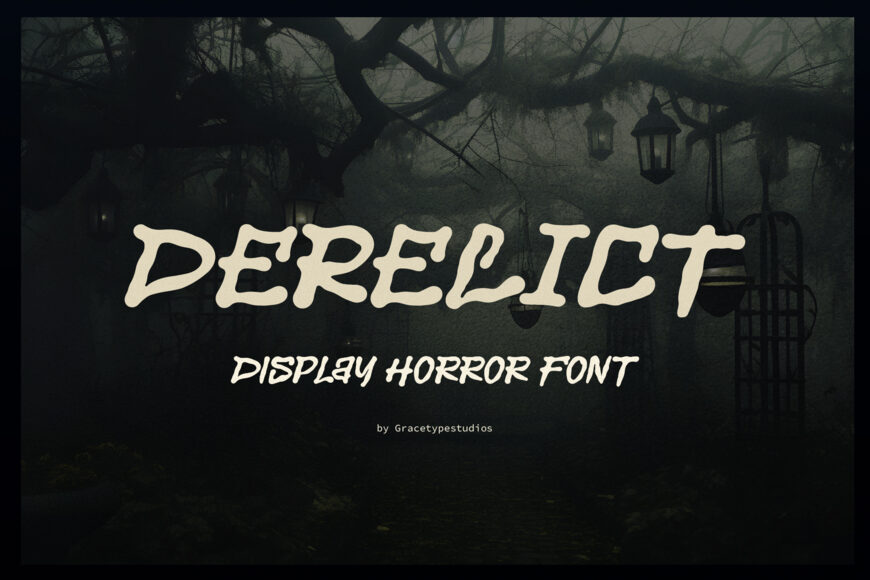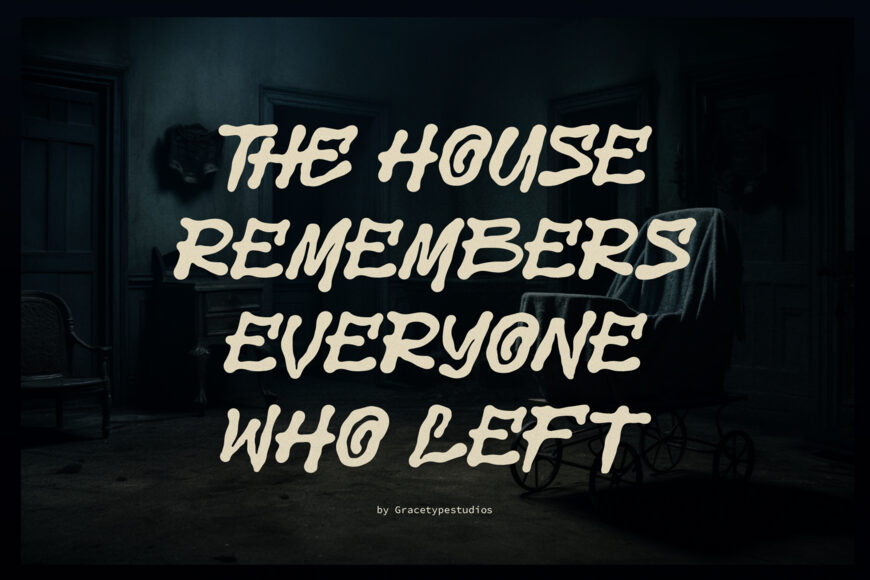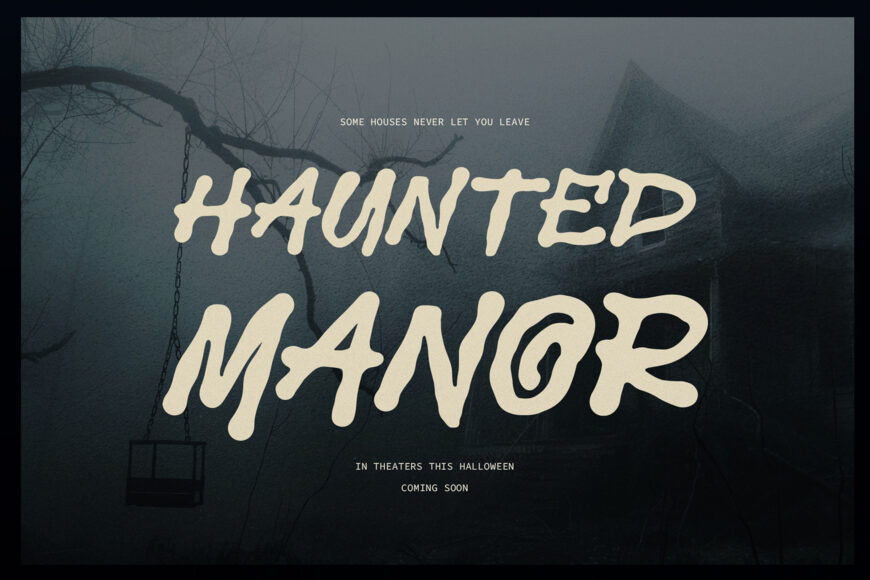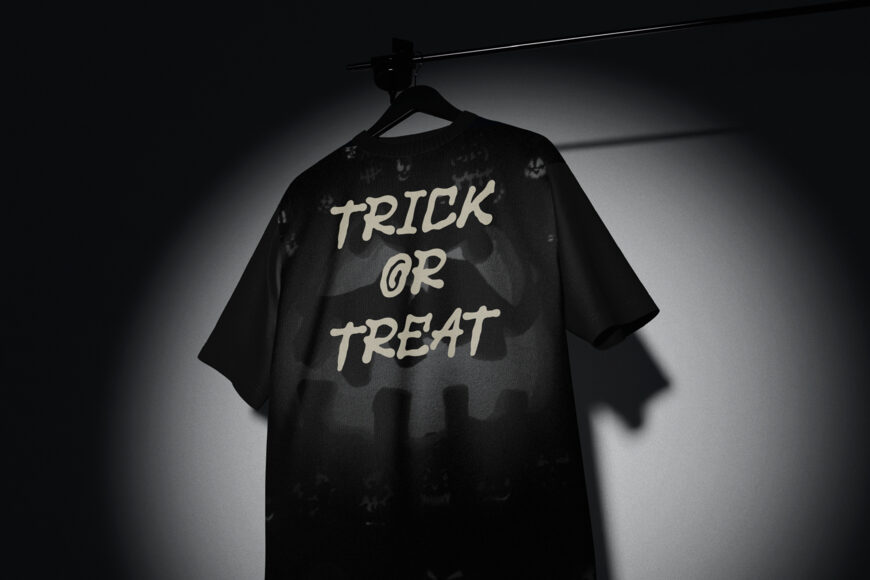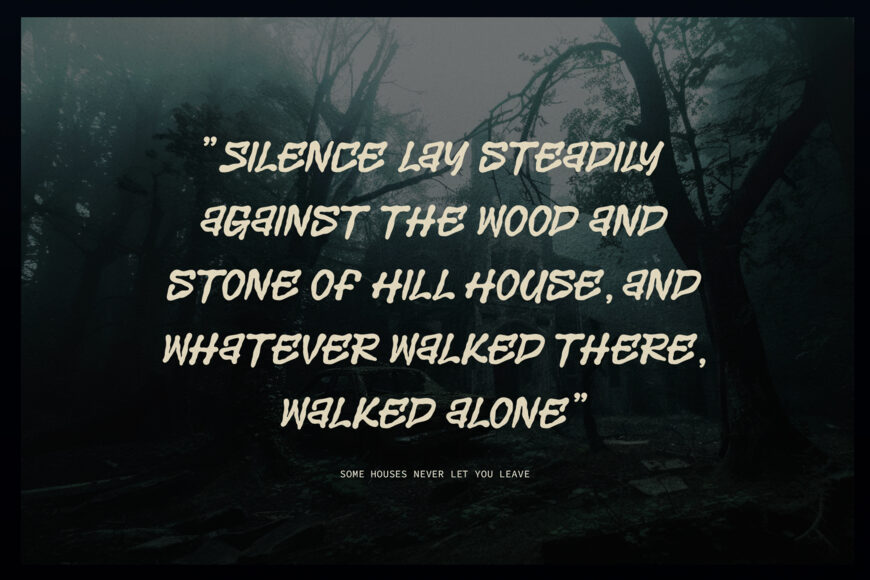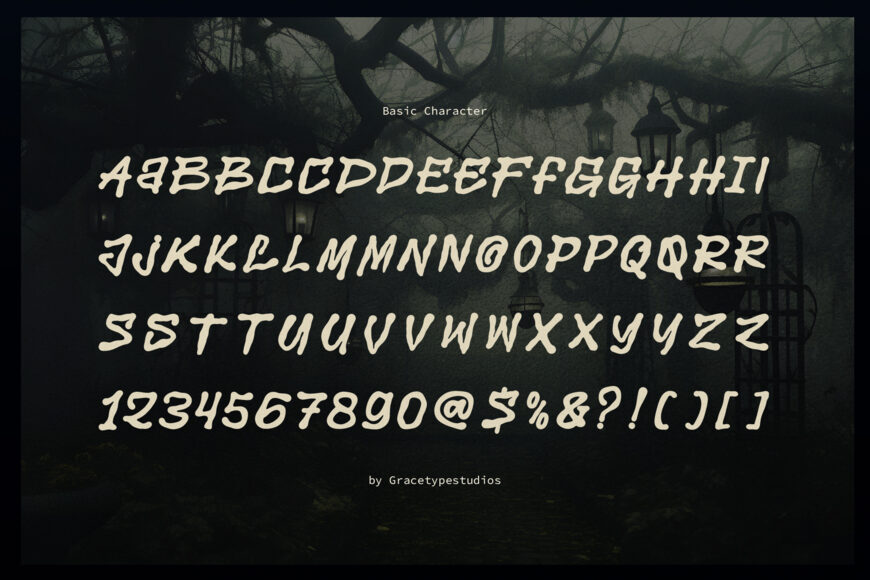
Invoke eerie cinematic mystery, dark atmospheric tension, and haunting horror aesthetics with DERELICT! This spooky display font features heavy organic strokes, carved bone-like terminals, and jagged wavy baselines that feel pulled from a dark, fog-choked forest. Its haunting rhythm adds immediate gothic intrigue to seasonal layouts.